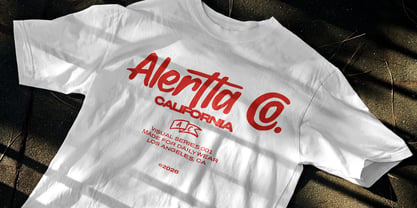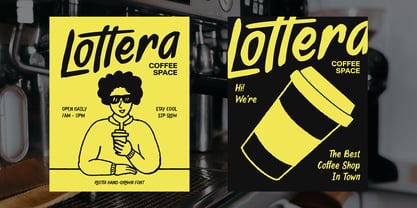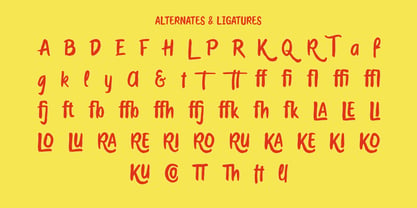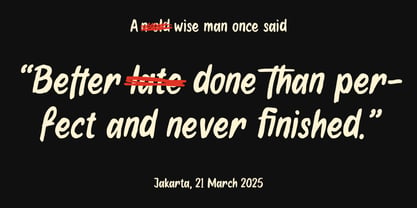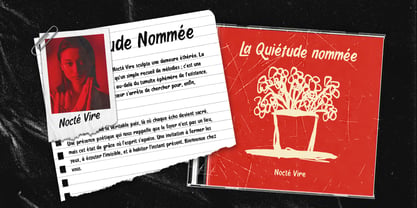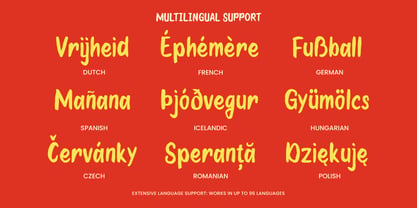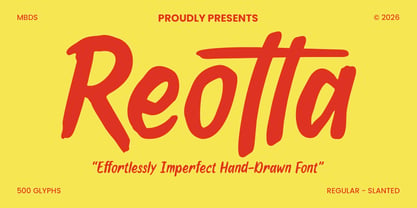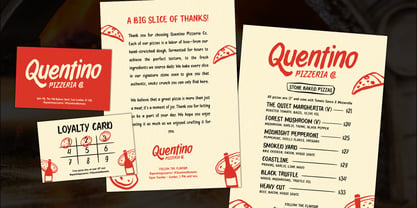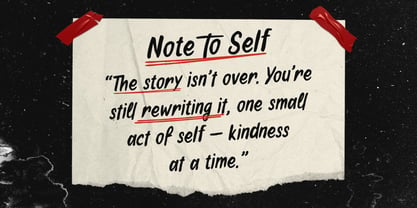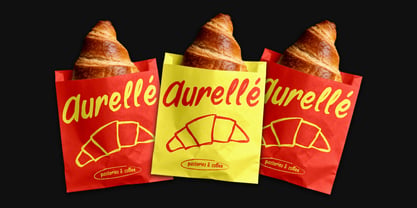
Reotta
by Mbonster
The Reotta Font Family was designed by Rizka Rony Setiawan and published by Mbonster. Reotta contains 2 styles and family package options. More about this family
Reotta — Imperfect Lines, Human Warmth
Reotta is a hand-drawn font that celebrates the honesty of every stroke. Inspired by free and personal expression, it presents itself as raw, expressive, and beautifully imperfect. Each letter carries a unique personal character, making Reotta a strong choice for design projects that need warmth, a human touch, and a clear visual presence.
Use Reotta to give designs a natural, human feel across branding, packaging, editorial work, or social media. Its expressive strokes and organic imperfections make every word feel personal and alive, helping your work stand apart with authenticity and character. Reotta adds warmth and a distinctive voice to your next creative project.